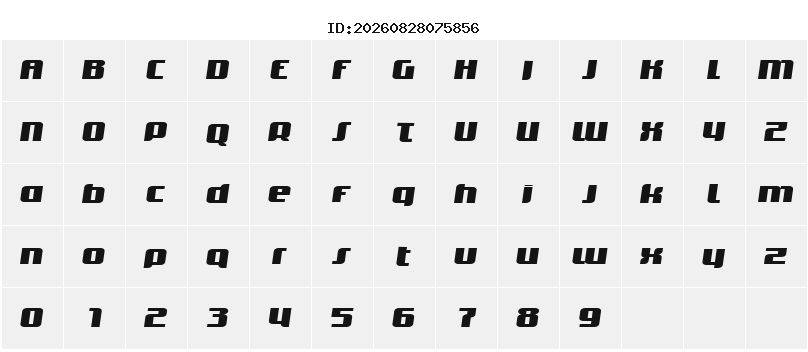
TransItalic Preview
• Font Name: TransItalic
• Full Font Name: TransItalic
About TransItalic.ttf
TransItalic.ttf is a modern, elegant sans-serif font designed for ultimate readability and visual harmony. Perfect for branding, headlines, web design, and print materials.